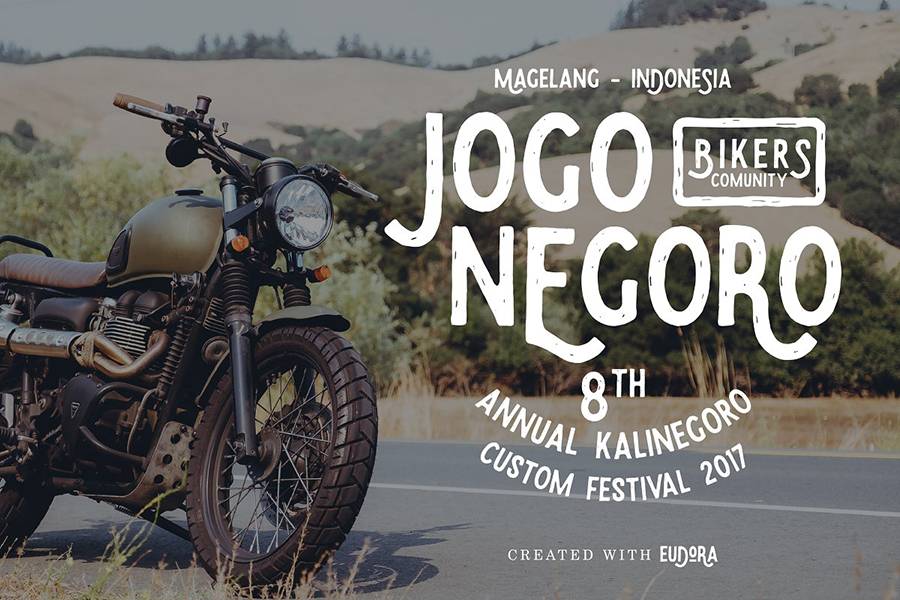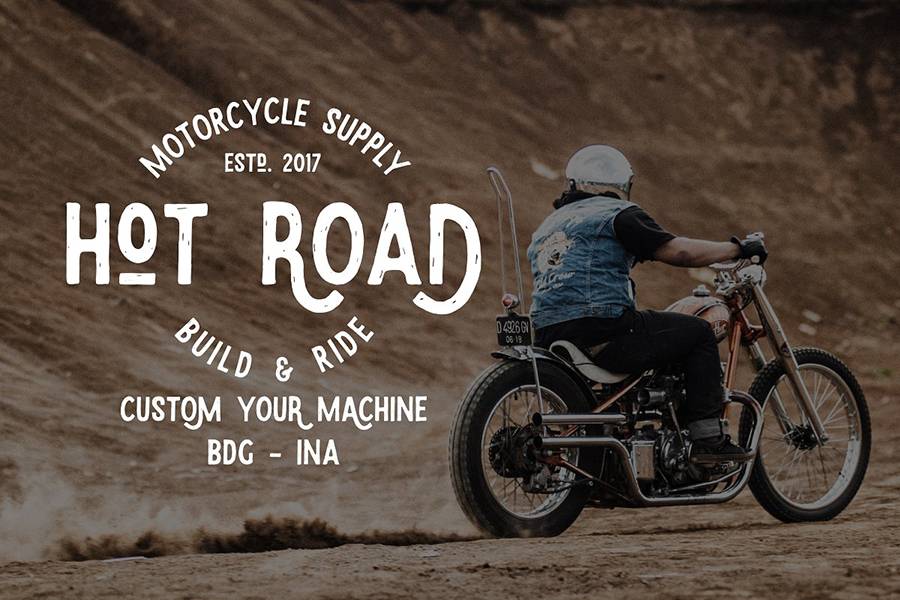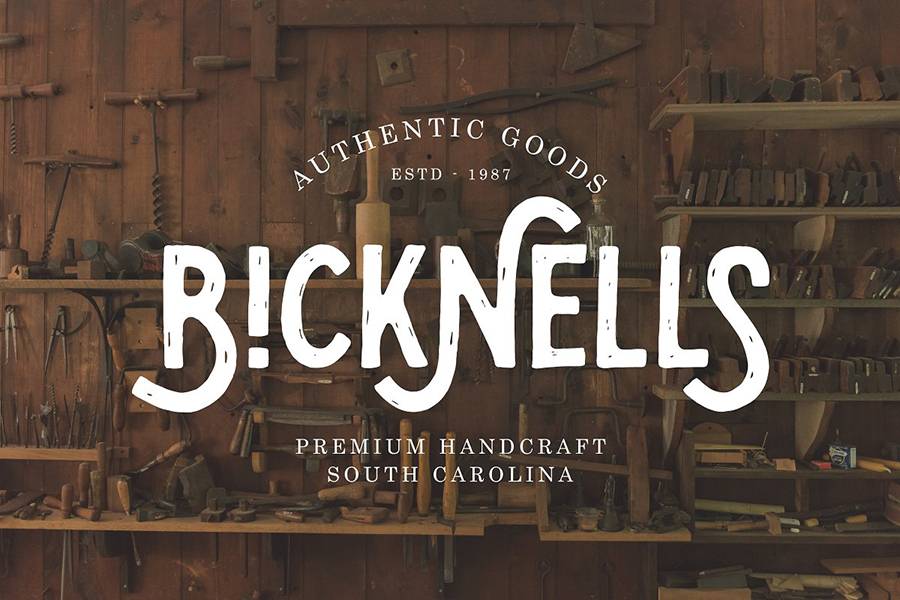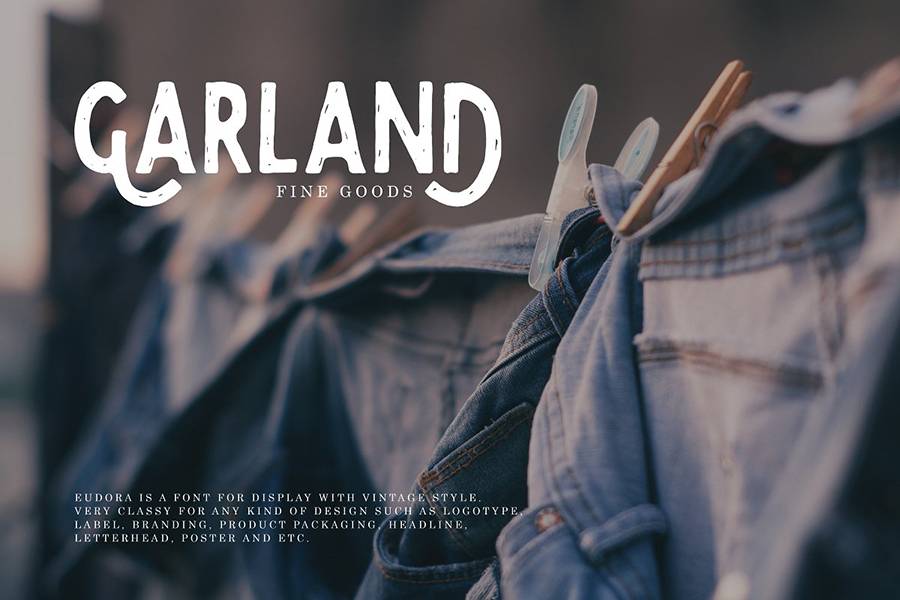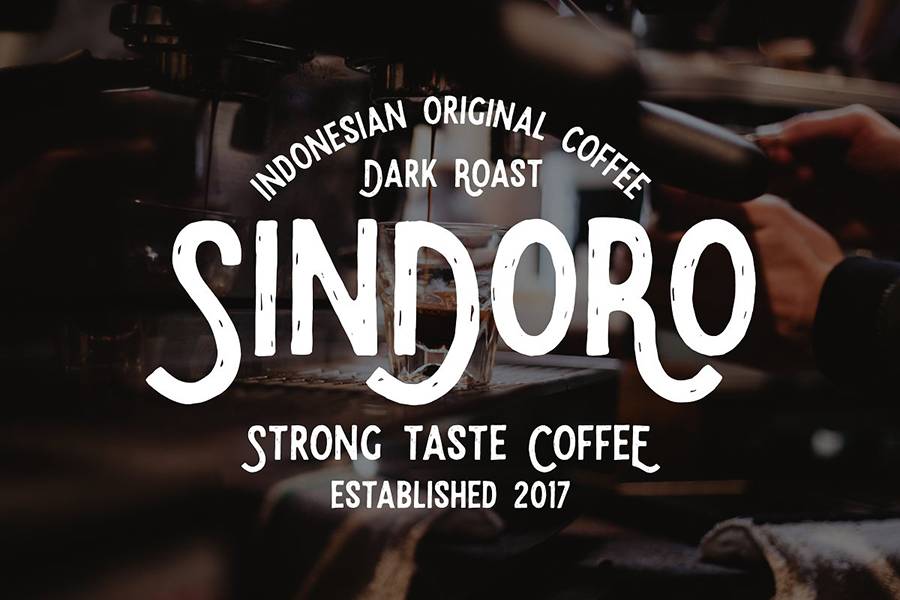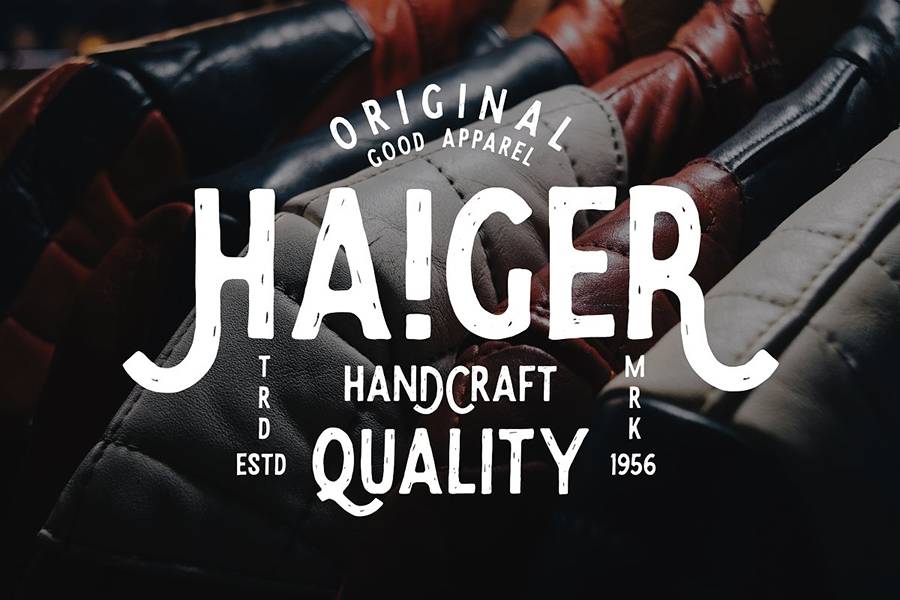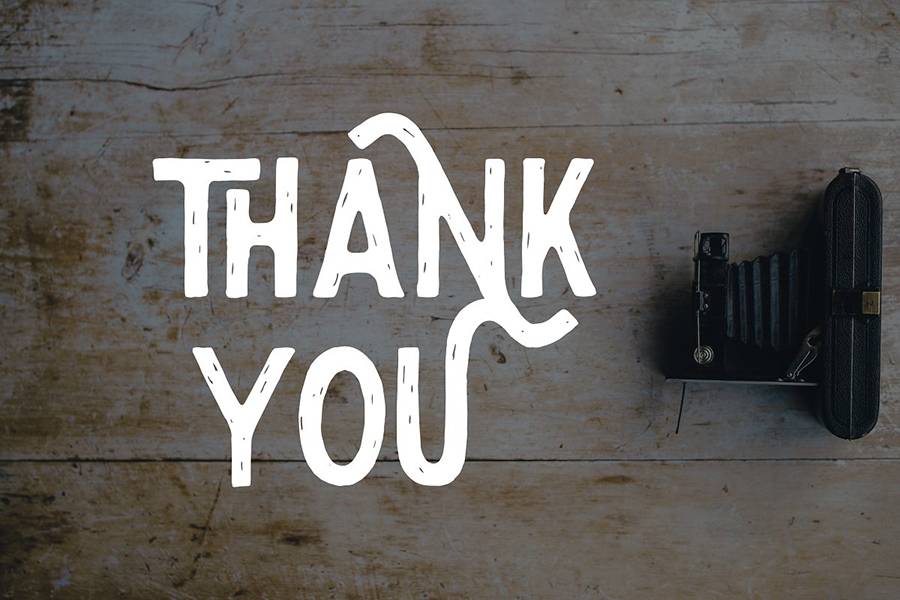
Eudora Vintage Display is a distinctive, bold sans serif font with a handcrafted, retro style that exudes character and charm. Its uneven strokes and playful, quirky letterforms give it an inviting, informal feel, making it perfect for vintage-inspired branding, posters, and headlines that seek a warm, nostalgic vibe. This font shines in creative projects aiming for a unique, eye-catching look with personality and a touch of whimsy.
Eudora Vintage Display Font
About Eudora Vintage Display Font
| Font family | Eudora Vintage Display Font |
| Release date | 2017-10-12 |
| Designer | Satia Hayu Prabowo |